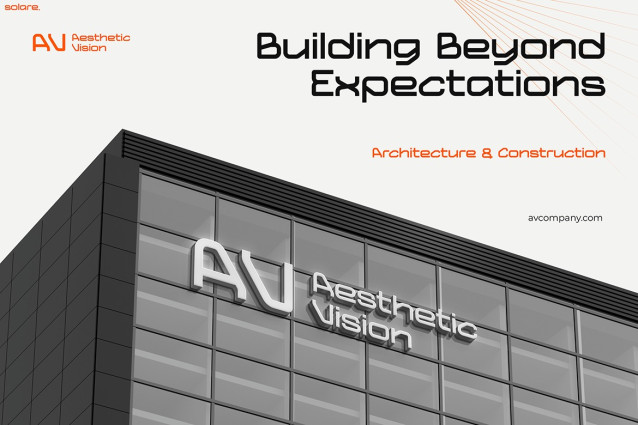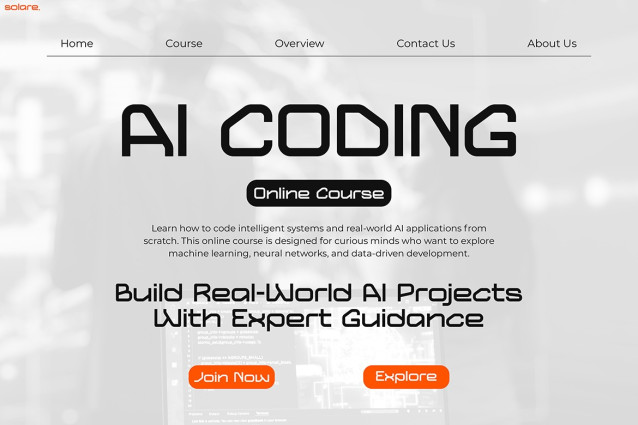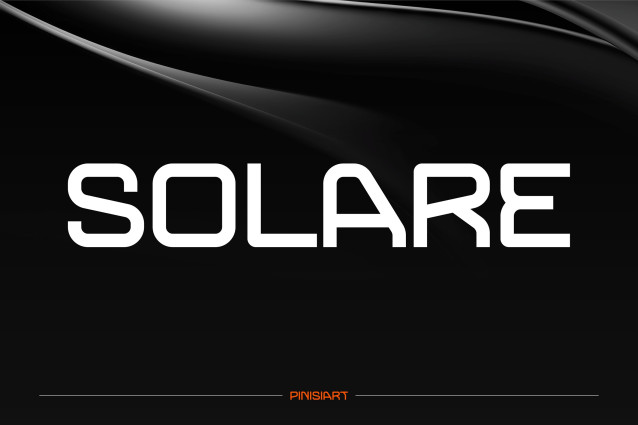
Solare Font
Solare Font – Brings strength, clarity and futuristic design to any project. With clean lines, geometric balance and futuristic touches, this font is attention-grabbing while remaining easy to read. Furthermore, its refined aesthetic adds power to technology presentations, architectural branding and innovation campaigns. Sharp edges combined with smooth curves create a distinctive look that exudes professionalism and foresight. Therefore, Solare not only beautifies your words but also amplifies them in a purposeful way.
Why Choose Solare for Your Designs
Solare reflects the spirit of the future with a design that combines innovation and versatility. Furthermore, its futuristic look allows creators to convey bold ideas with style and precision. You can apply it to large-scale displays, digital interfaces, corporate presentations, and brand identities that require modern flair. Plus, with a complete set of uppercase, lowercase, numbers, and symbols, Solare easily adapts to a variety of creative needs. Whether you’re showcasing futuristic technology, highlighting architectural precision, or launching bold campaigns, Solare delivers your message with aesthetic power.
Solare is a futuristic font that’s ideal for designers, brands, and creatives
Graphic designers use Solare to create striking logos, posters, and typographic layouts. Likewise, technology companies rely on it to present innovative ideas and reinforce modern brand identities. Architects and developers also highlight beautiful buildings and visionary projects with Solare’s clean shapes. Similarly, startups and marketing teams elevate their product launches and campaigns by using attention-grabbing typography that reinforces their futuristic branding. So, if your goal is bold, futuristic design, Solare is your most trusted creative partner.
Bring the Future to Your Work
With the Solare Futuristic Typeface, you’re not just choosing a typeface, but a design language that conveys power, creativity, and innovation. Every detail helps your ideas shine and connect with a modern audience. Ultimately, upgrading your project with Solare means shaping the future of design today.